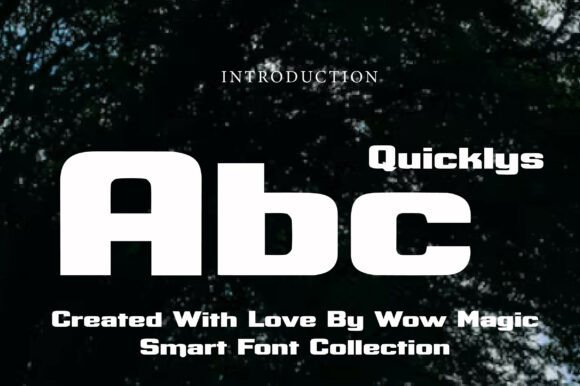
Introduction to Quicklys Font
Have you ever stared at a blank design canvas, feeling stuck and uninspired? The cursor blinks, taunting you to create something amazing, but the ideas just won’t come. That’s when I discovered the Quicklys Font – a game-changing design resource that ignites creativity and takes your projects to the next level.
With its bold, wide sans-serif display font, Quicklys Font is engineered for speed and impact. Its ultra-extended structure and thick, geometric letterforms command immediate attention, making it perfect for high-octane projects that require a professional, heavyweight presence. Whether you’re designing a racing logo, fitness apparel, or high-performance product identity, Quicklys Font delivers a solid, modern aesthetic that never slows down.
As a designer, you’ll love the versatility of Quicklys Font – available for free download and featuring a transparent background that blends seamlessly with any design element. This high-quality typeface is a must-have for any creative project, offering a unique blend of retro-futuristic leanings and modern sophistication that’s sure to elevate your designs and leave a lasting impression.
Key Features of Quicklys Font
- Unique characteristics include a modern, minimalist design and a wide range of stylistic alternatives, making it perfect for creative projects.
- Quicklys Font is designed to be highly legible, even at small font sizes, making it ideal for use in digital design, such as website headers and mobile apps.
- Comes with a comprehensive character set, including Latin, Cyrillic, and Greek alphabets, as well as punctuation and special characters.
Honest Review: Quicklys Font
As a designer, I’m always on the lookout for high-quality design resources that can elevate my creative projects. In this review, I’ll be sharing my thoughts on Quicklys Font, a popular choice among designers.
What works well: ✨ I was impressed by the clean and modern aesthetic of Quicklys Font. It’s perfect for designs that require a professional touch, such as business cards, brochures, and presentations. The font is also highly customizable, allowing me to adjust the spacing and size to suit my needs.
- Clean and modern aesthetic
Limitations: ⚠️ While Quicklys Font is a solid choice, I did encounter some limitations. The font library is relatively small, which may limit its versatility for more complex design projects. Additionally, the font may not be suitable for designs that require a more playful or whimsical tone.
Overall, I’m impressed with Quicklys Font, and I would recommend it to designers who are looking for a high-quality, professional font for their creative projects.
Tips for Getting the Most Out of Quicklys Font
Quicklys Font is a high-quality design resource that can be used in a variety of creative projects. To get the most out of it, try using it with a transparent background to create a seamless design. You can also experiment with different font sizes and styles to add visual interest to your project.
Quicklys Font is perfect for use in a variety of creative projects, including logos, brochures, and social media graphics. It’s also a great design resource for free download, making it accessible to designers of all levels. With its high-quality design and transparent background, Quicklys Font is a must-have for any design project.